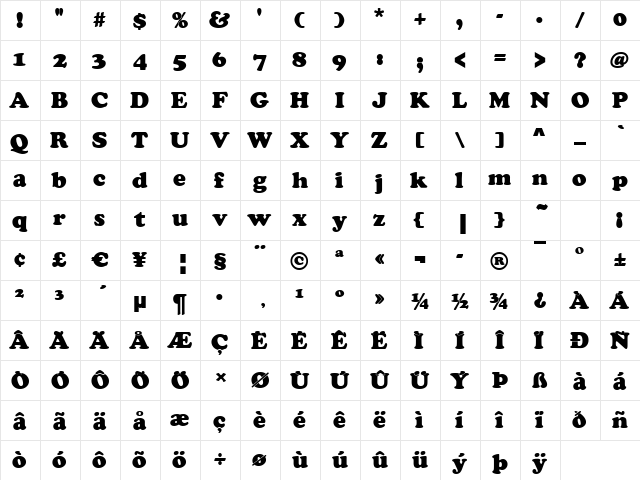
Cooper-Black-Poster Regular
Design Context for Cooper-Black-Poster Typeface
Cooper-Black-Poster takes a measured approach to typography — its balanced proportions and neutral character make it a reliable workhorse for both digital and print work.